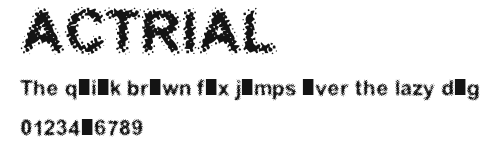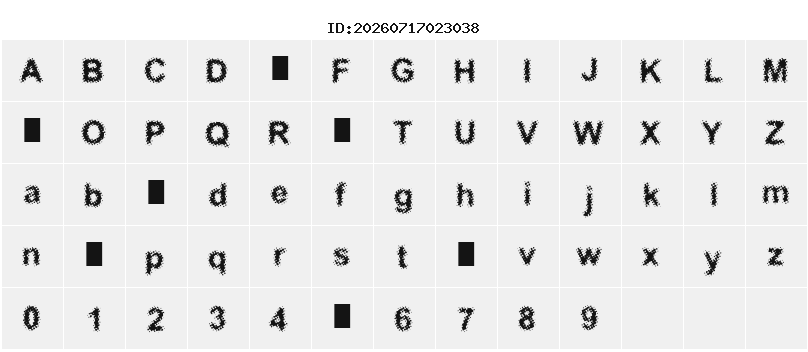
ACTRIAL Preview
• Font Name: ACTRIAL
• Full Font Name: ACTRIAL
About ACTRIAL.ttf
ACTRIAL.ttf is a modern, elegant sans-serif font designed for ultimate readability and visual harmony. Perfect for branding, headlines, web design, and print materials.